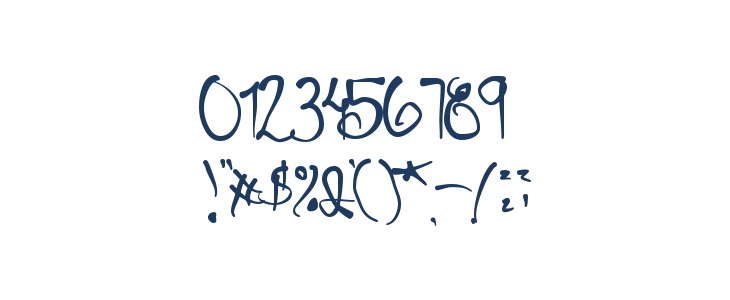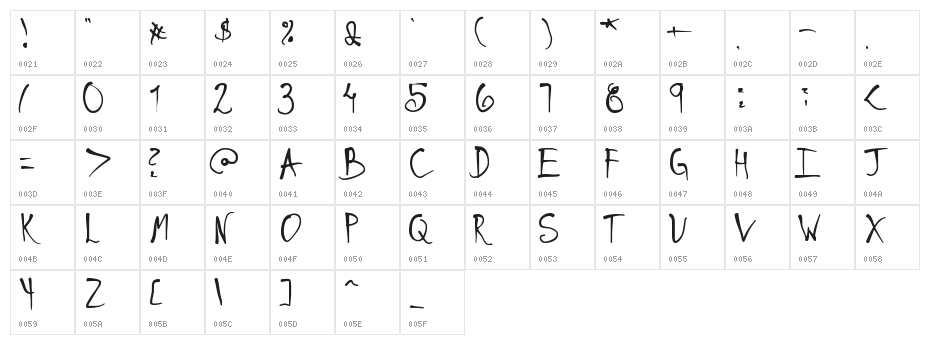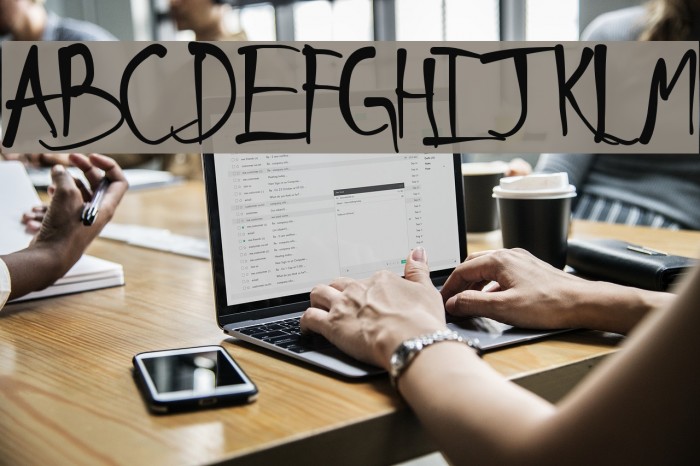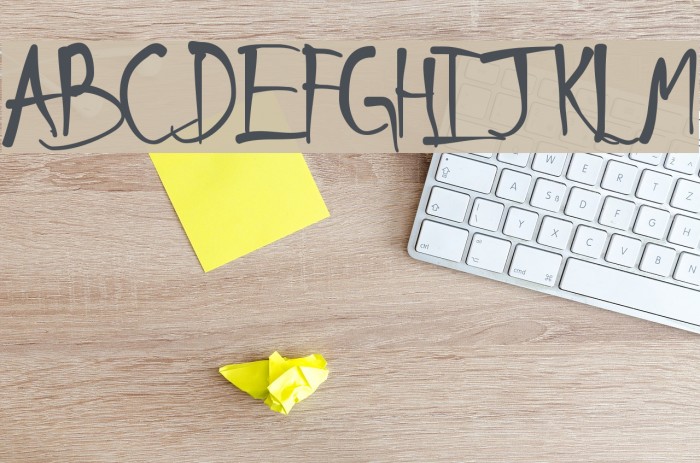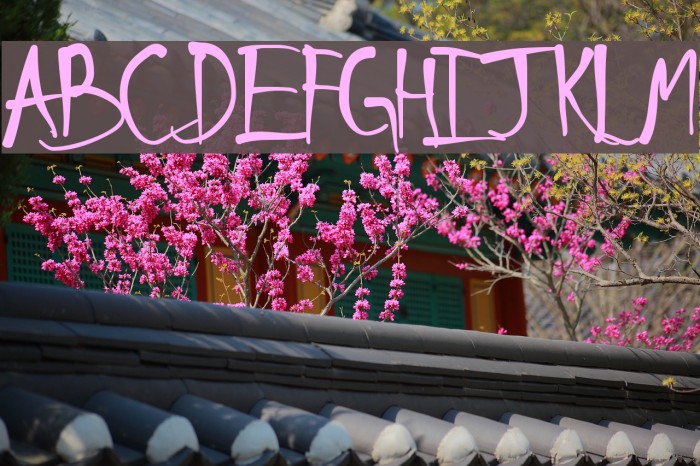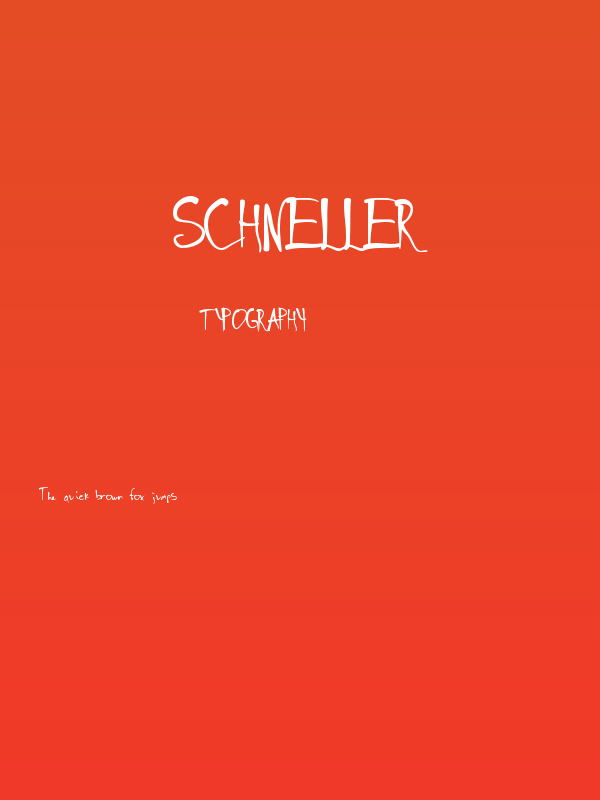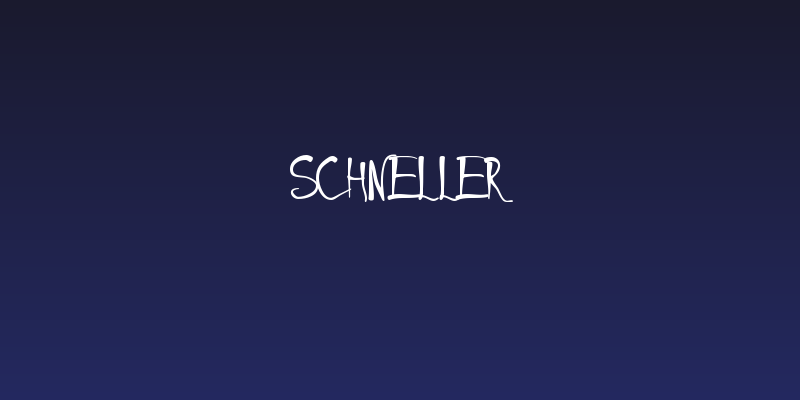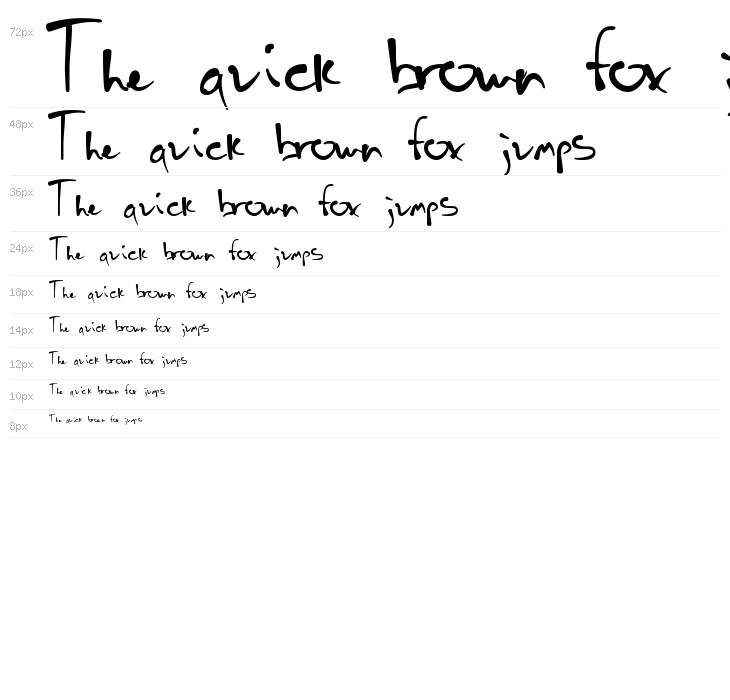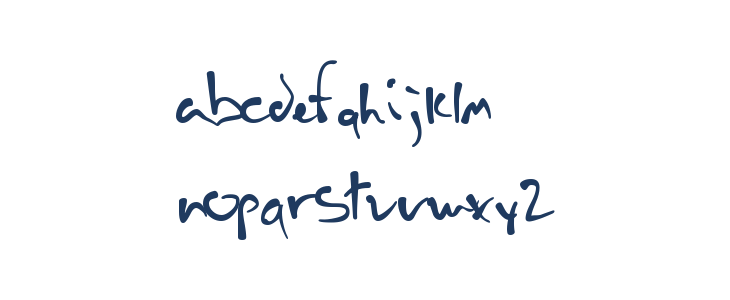
Schneller Font
Schneller Description
This font features a playful, handwritten style with a casual and informal appearance. The letters are slightly irregular, giving it a dynamic and lively feel. The uppercase and lowercase letters maintain a consistent flow, with rounded edges and varying stroke widths that add to its charm. The numbers and special characters are equally expressive, making it suitable for creative projects. The overall design is approachable and friendly, perfect for adding a personal touch to any text.
| Proposed Projects | Ideal for greeting cards, invitations, children's books, and creative branding projects. |